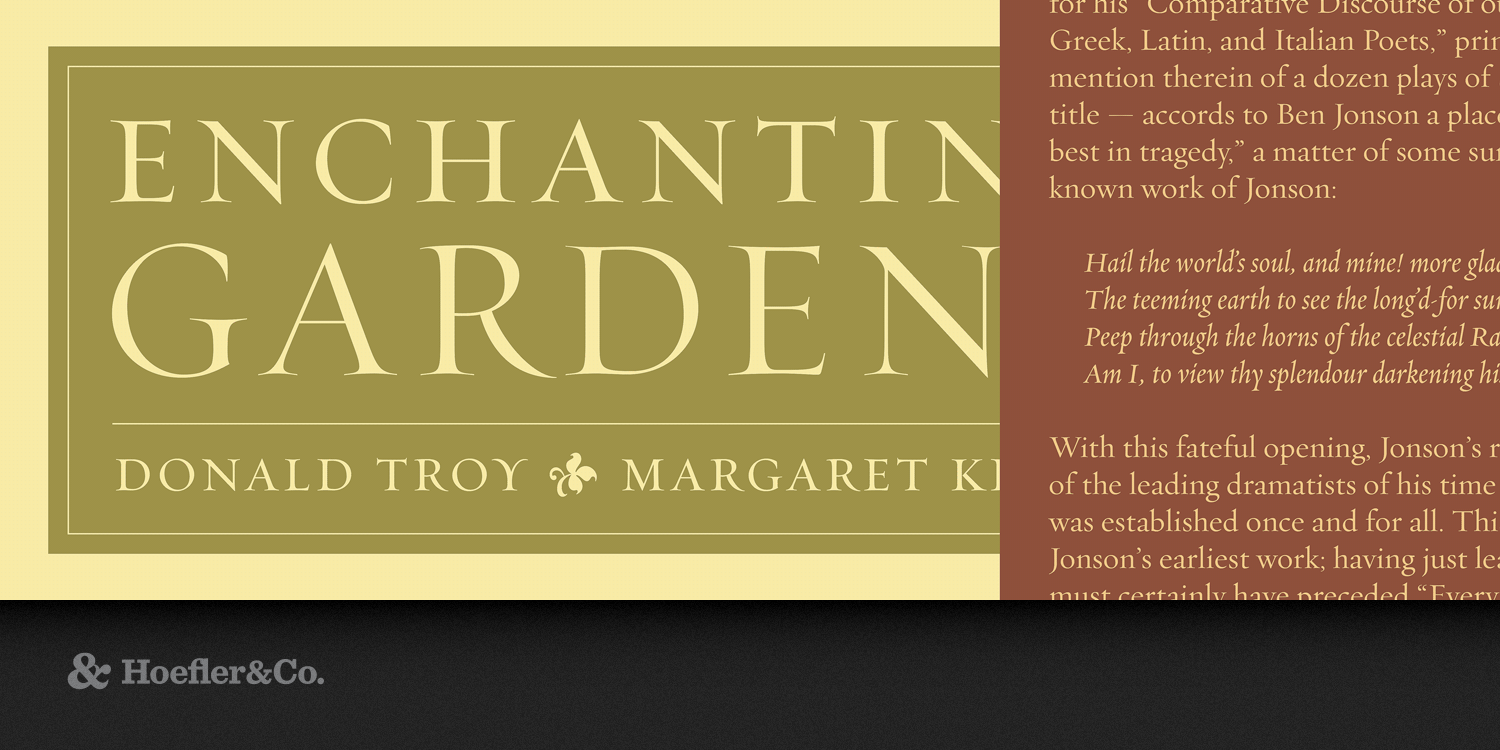
The Requiem Font is an exquisite choice for a wide range of design applications that demand a sophisticated and classical aesthetic. Imagine it gracing the covers and interior pages of elegant literary fiction, lending an air of timeless refinement to high-end branding for luxury goods, or providing a distinguished and readable text for academic and historical publications. Its intricate details also make it ideal for formal invitations, art exhibition catalogs, and any project where a sense of tradition, artistry, and elevated taste is paramount. This font excels in environments that value both profound beauty and clear communication.
What makes Requiem Font so exciting is its masterful reinterpretation of the types cut by the celebrated 16th-century Italian punchcutter Robert Granjon. It captures the essence of Renaissance typography with remarkable fidelity, showcasing a delicate balance between ornate details and underlying legibility. The sharp serifs, elegant curves, and varied stroke widths contribute to an overall sense of handcrafted artistry and intellectual depth, making it truly captivating to behold. It’s a typeface that speaks with historical authority and artistic flair, ensuring your content is perceived with the utmost reverence and beauty.
The Requiem Font family is designed to offer a versatile range of options while maintaining its distinct classical character. You'll typically find a selection of weights and optical sizes tailored for different uses, from a delicate Text weight perfect for body copy to more robust Display weights designed for headlines and larger sizes. This careful consideration for optical compensation ensures that the font performs beautifully across various applications. Each weight and style within the Requiem Font family maintains the consistent elegance and detailed craftsmanship that define it, ensuring a cohesive and distinguished aesthetic across all your projects. Discover its timeless beauty today – Requiem Font Free Download is available now!